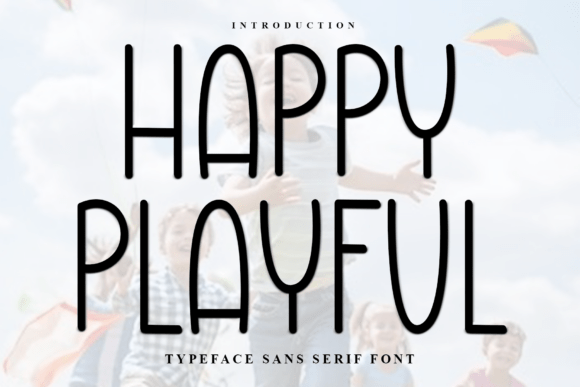
Unleashing Creativity with the Happy Playful Font
Have you ever stared at a blank canvas, waiting for the perfect spark to ignite your creative juices? It’s that moment when you feel the urge to express yourself, to bring a new idea to life. For designers, this moment is a regular occurrence, and it’s what makes their job so rewarding. But sometimes, all it takes is the right tool to get those creative juices flowing.
Enter the Happy Playful Font, a beautiful and eye-catching design element that’s perfect for adding a touch of personality to your projects. This unique font is designed to be versatile, making it ideal for a wide range of creative works, from design projects to crafts and more. Its soft, natural strokes give it a special character that’s sure to make your designs stand out.
Key Features of Happy Playful Font
- Unique Characteristics: Whimsical, childlike feel with playful flourishes and rounded edges
- Font Styles: Includes regular, bold, italic, and bold-italic styles for added versatility
Designer Review: Happy Playful Font
I recently had the chance to work with the Happy Playful Font, and I must say, it’s a unique and quirky addition to any design project ✨. Here are some of its strengths and weaknesses:
- ✨ High level of customization options: The Happy Playful Font allows designers to adjust the font’s width, weight, and even the spacing between characters, giving them a lot of creative control.
- ✨ Friendly and approachable aesthetic: This font is perfect for projects that require a playful and approachable tone, such as children’s books, party invitations, or social media graphics.
- ✨ Good legibility: Despite its playful nature, the Happy Playful Font remains easy to read, even at smaller font sizes.
- ⚠️ Limited versatility: While the Happy Playful Font excels in playful and casual contexts, it may not be the best choice for more formal or professional projects.
- ⚠️ Some characters may appear inconsistent: Depending on the specific use case, some characters in the Happy Playful Font may appear inconsistent or irregular, which can be distracting.
Overall, I think the Happy Playful Font is a great addition to any designer’s toolkit. While it may have some limitations, its high level of customization and friendly aesthetic make it a great choice for the right projects. With some careful planning and consideration, designers can use the Happy Playful Font to create truly engaging and effective designs.
The Happy Playful Font is ideal for creating fun and engaging designs for kids, education, and entertainment-related projects. Use it for social media graphics, posters, flyers, and more.